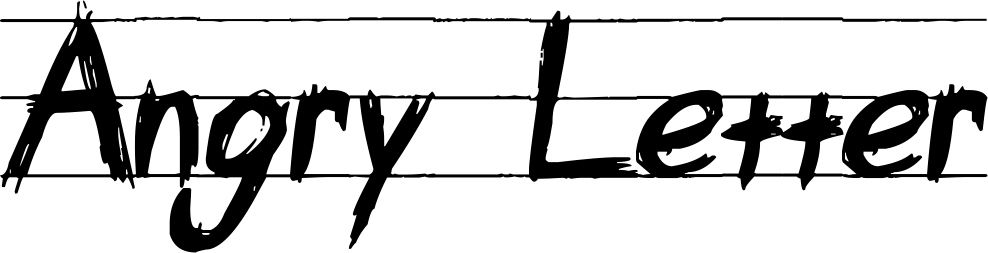
Angry Letter Font
Angry Letter is a script trash font that has brush letterings. The bold characters of this particular font give a creepy feel, they look angry and terrifying, the natural paintbrush letters add a hand-drawn element to your typography which looks realistic and imaginative.
There are mixed case A to Z letters and numbers available for Angry Letter while leaving out symbols. It’s a suitable and useful font for places like clothing, Halloween designs, games, toys, apps, and texts, or wherever you wish!